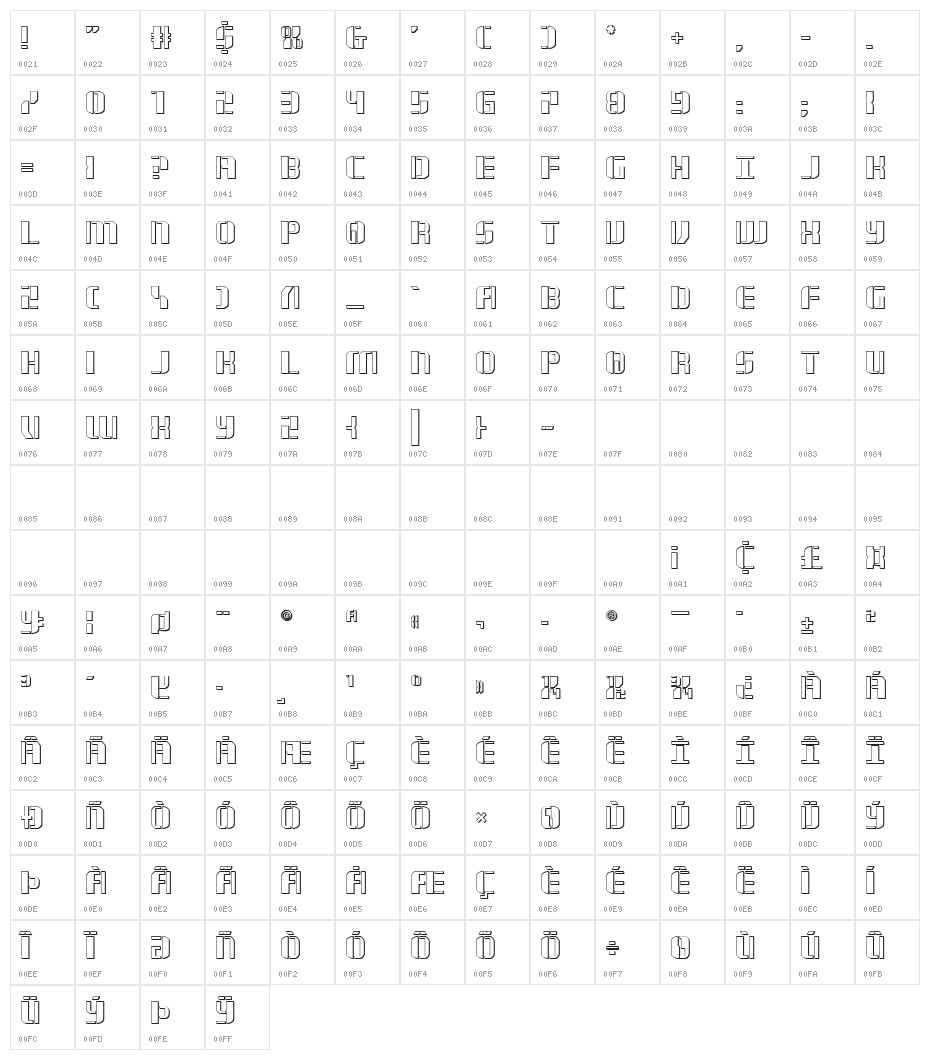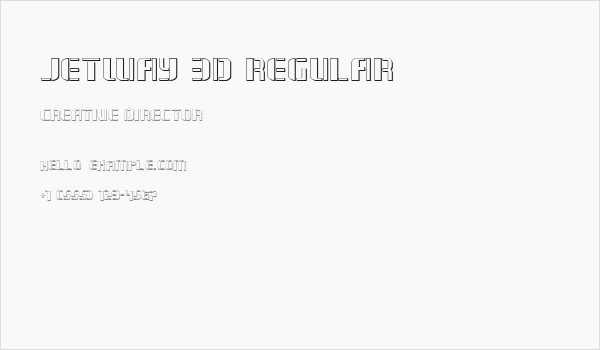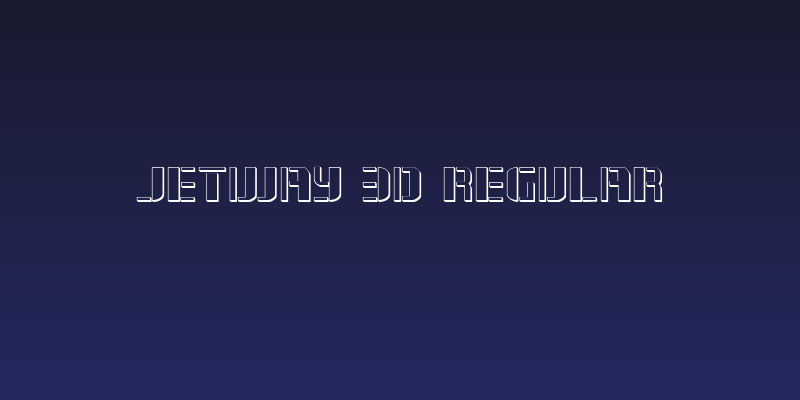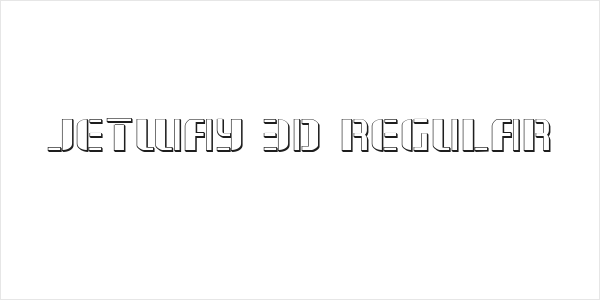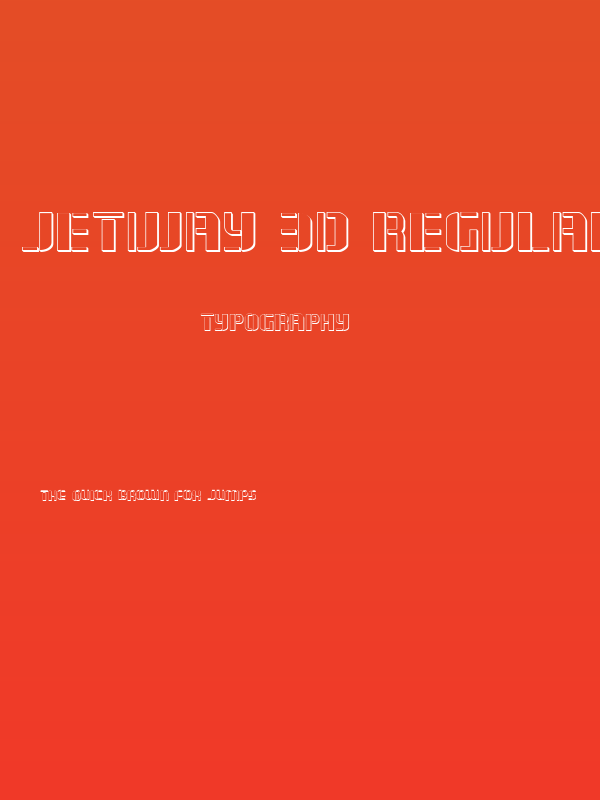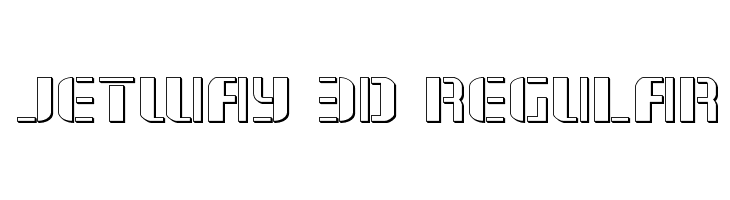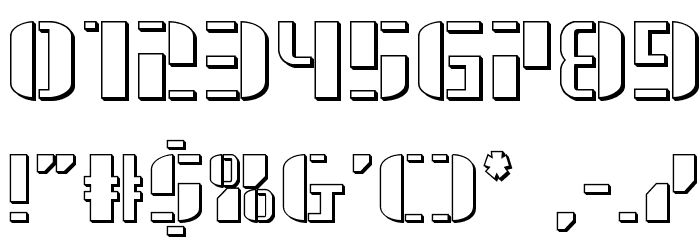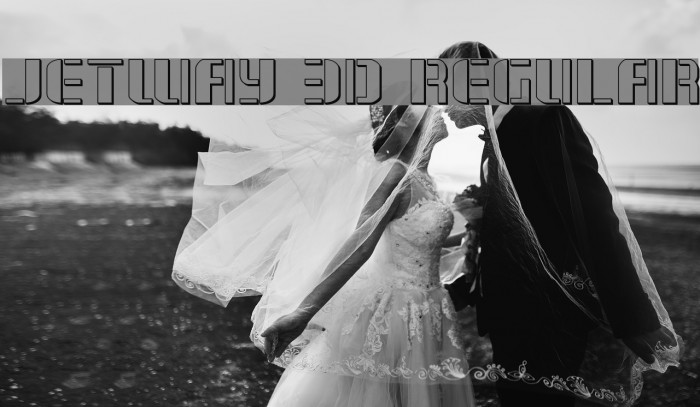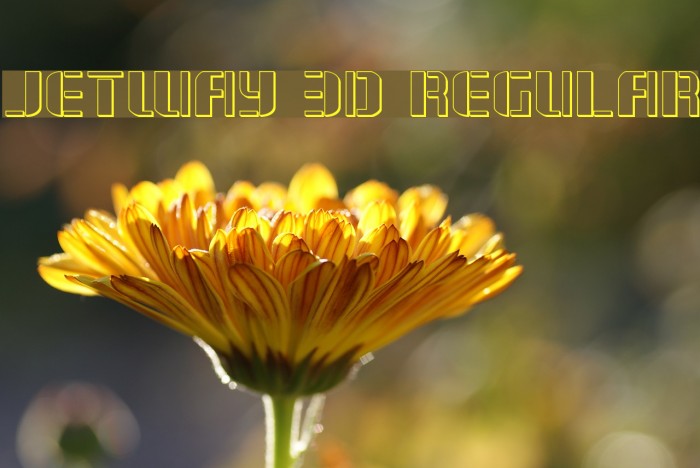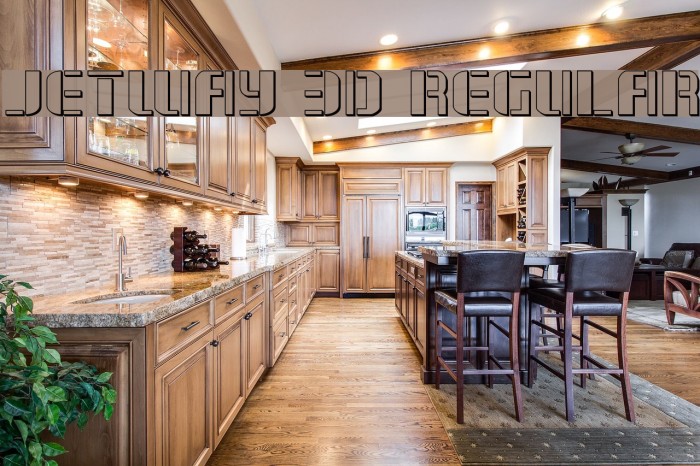
Jetway 3D Regular Font
Jetway 3D Regular Description
This font features a bold, three-dimensional design with a futuristic and industrial aesthetic. The characters are constructed with a combination of solid and outlined segments, creating a unique visual effect that suggests depth and movement. The geometric shapes and sharp angles give it a modern and edgy appearance, making it stand out in any design. The uppercase and lowercase letters maintain a consistent style, while the numerals and special characters complement the overall look with their cohesive design. This font is ideal for projects that require a strong, impactful presence.
| Proposed Projects | Ideal for branding, posters, video game graphics, and sci-fi themed designs. |